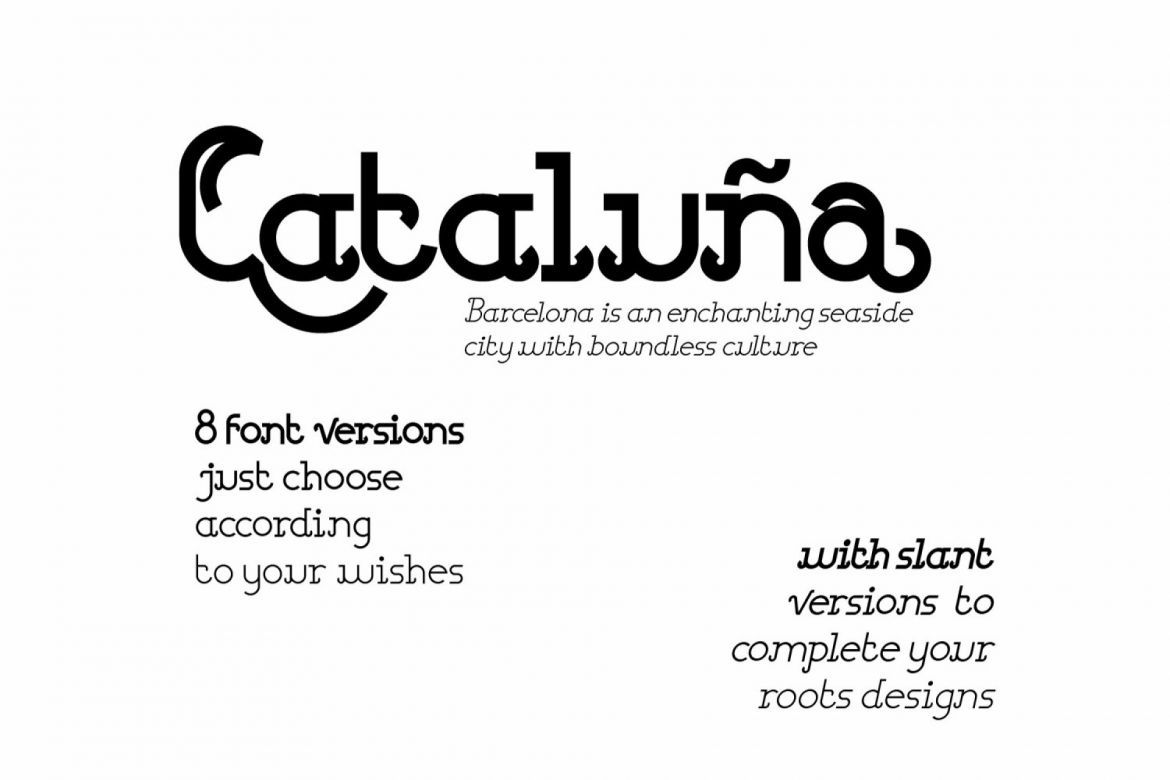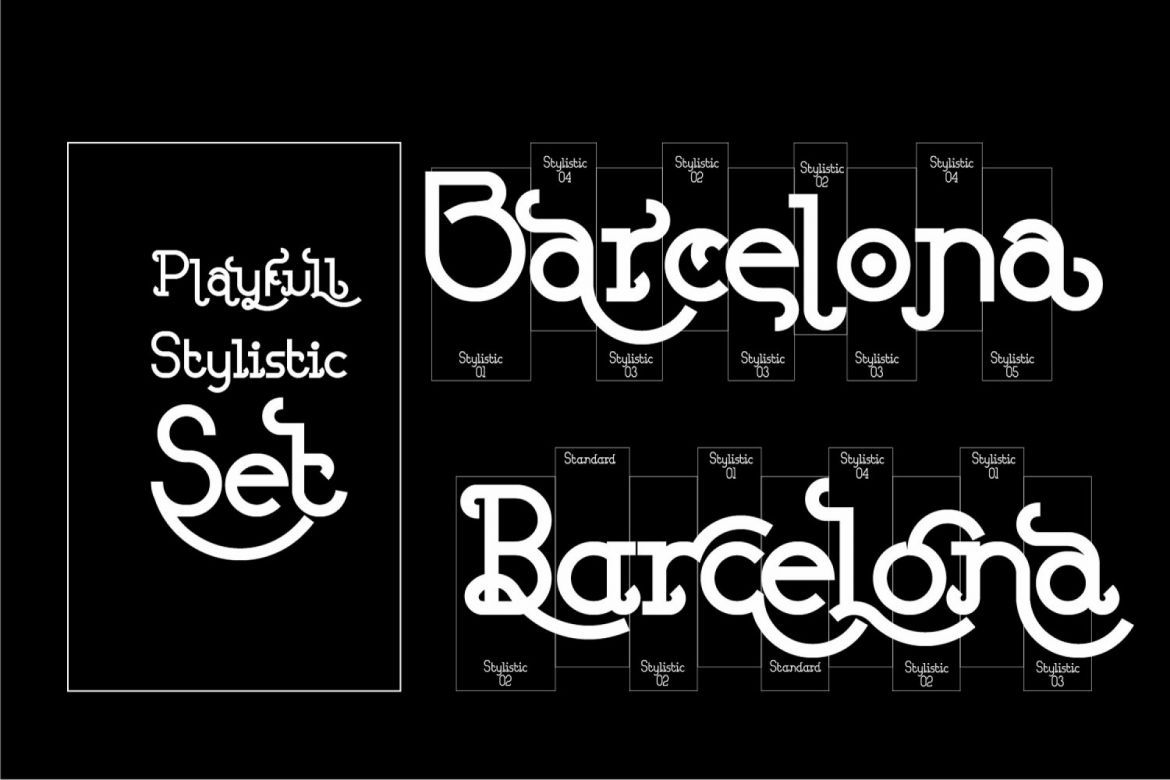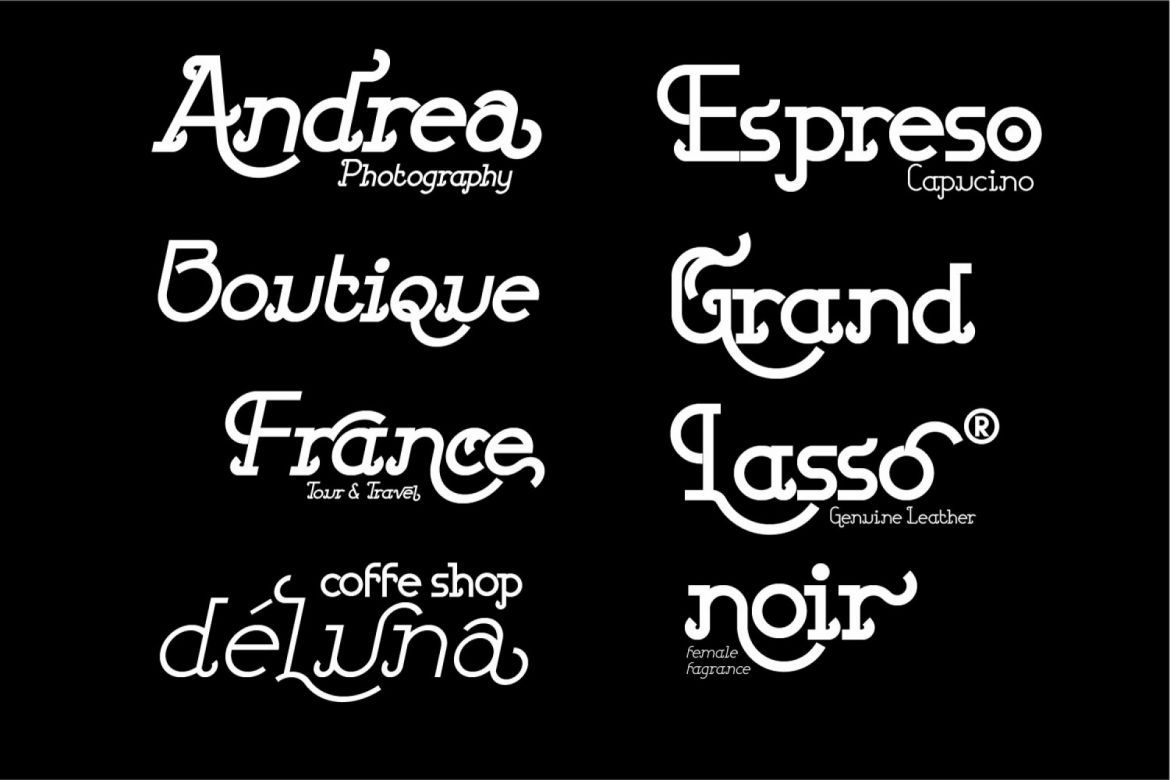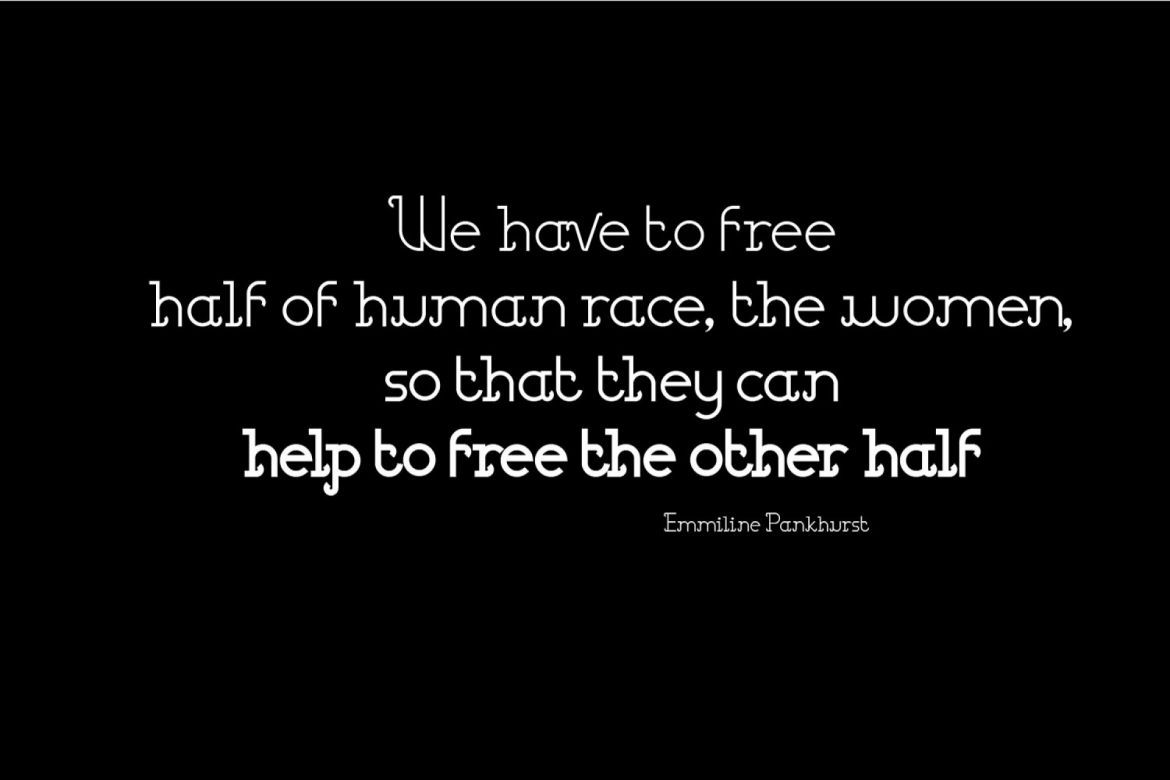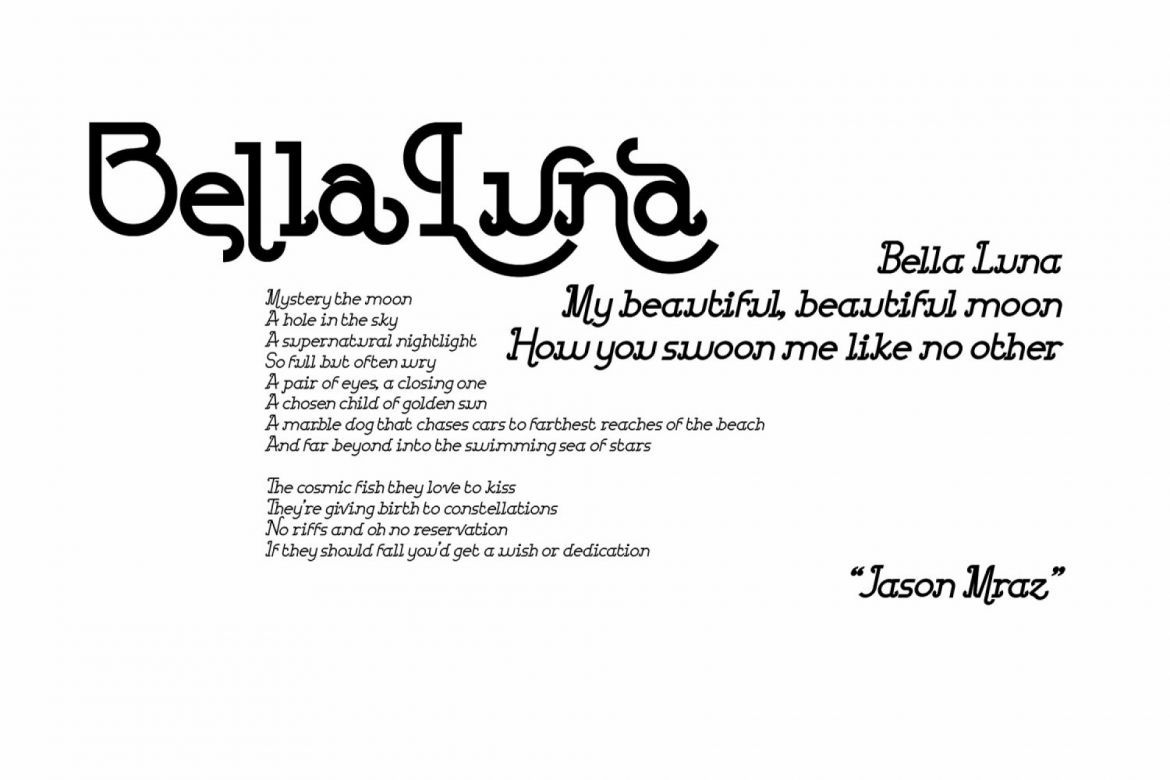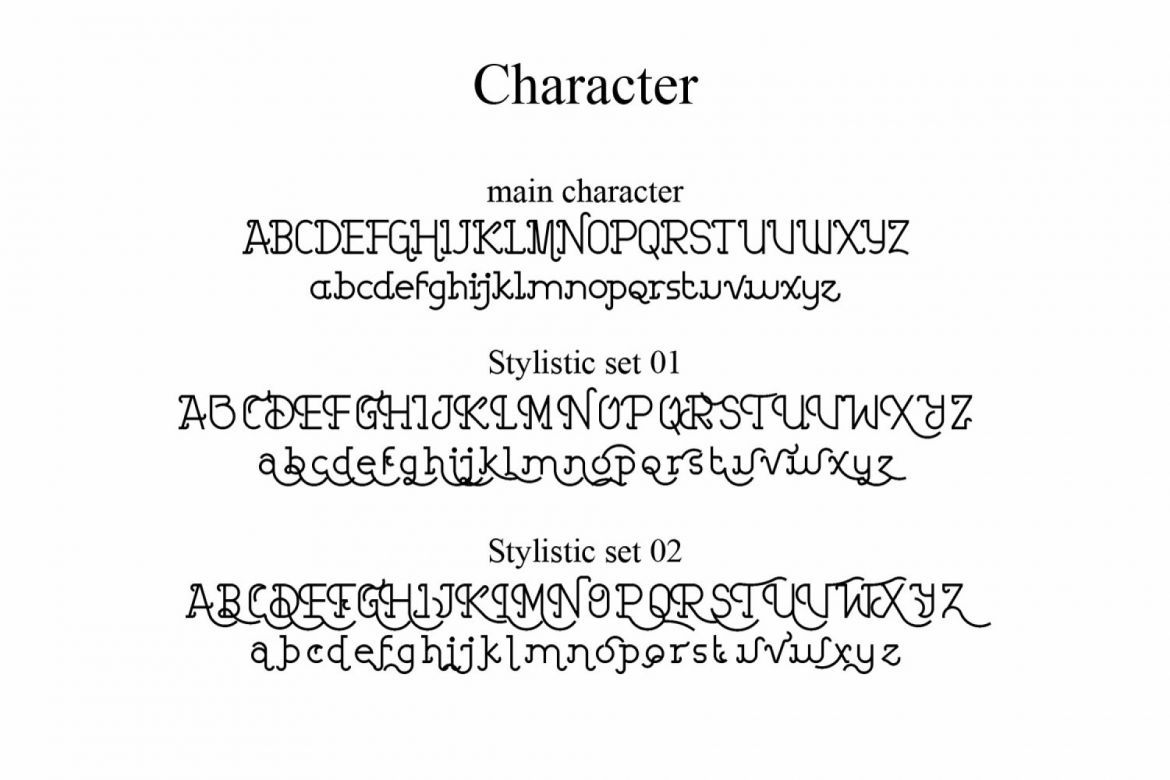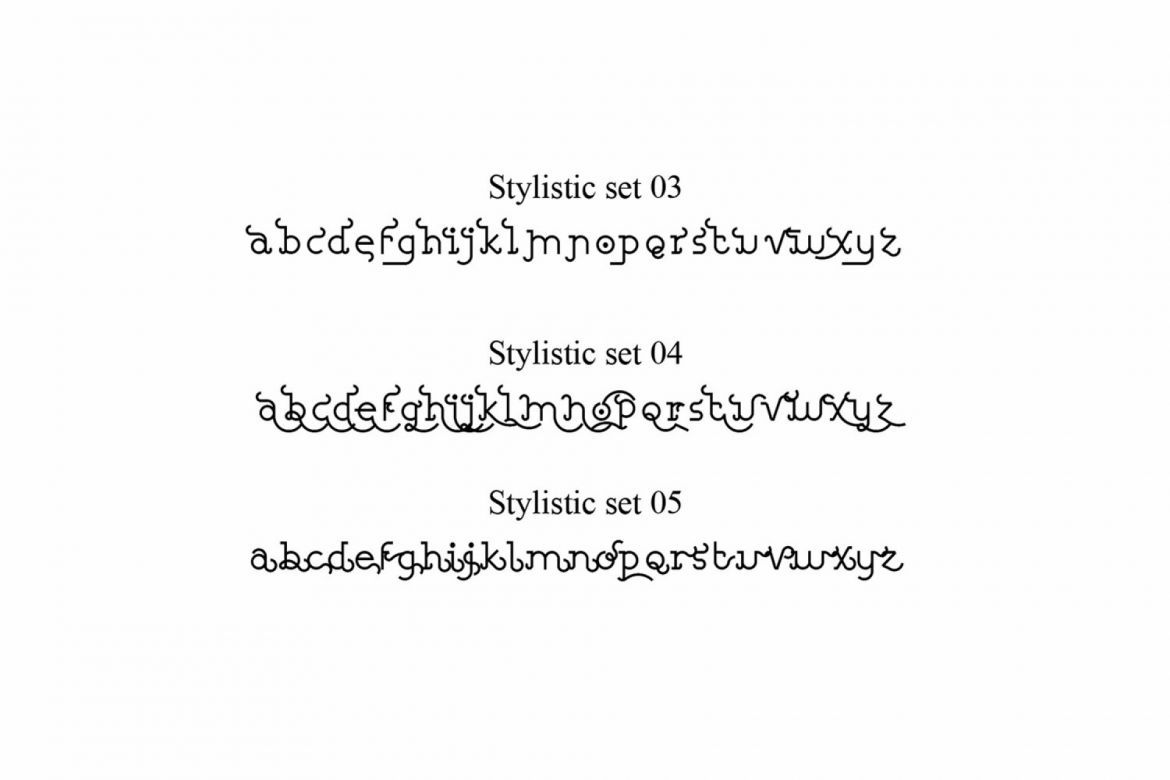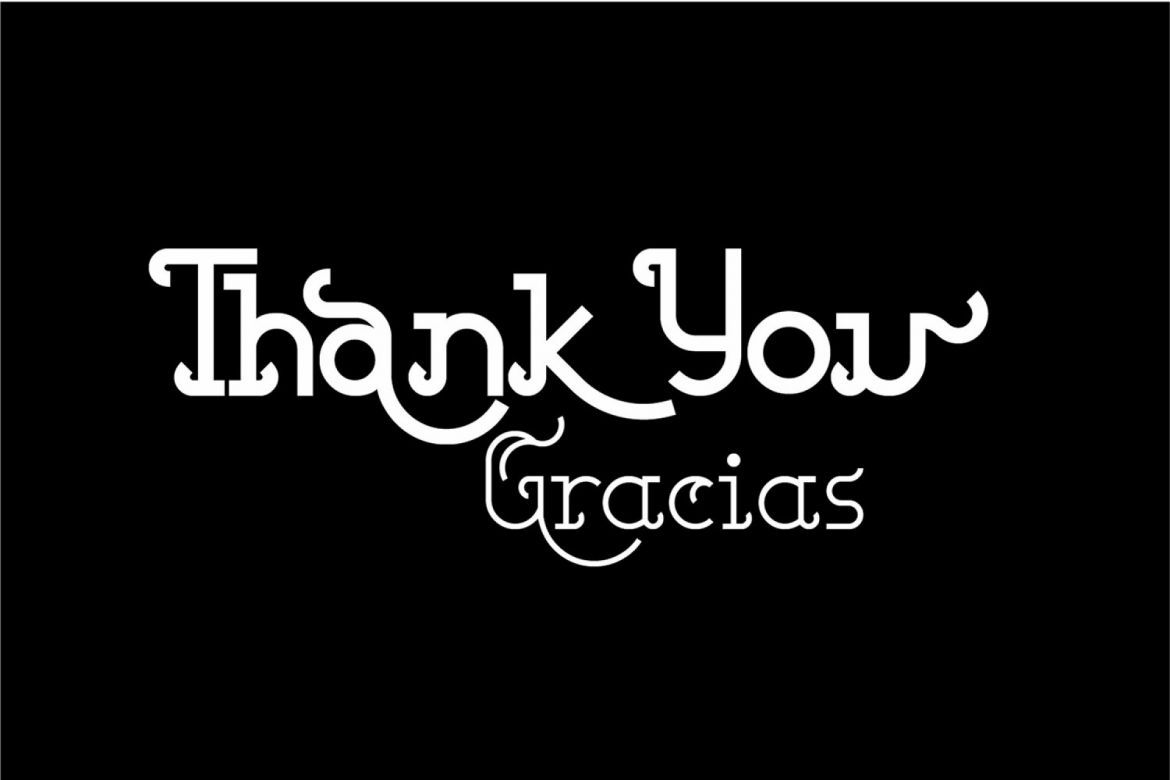
Barcelona Display Font Family
Barcelona is a font with new style of geometric san family. engaging character. Inviting and versatile, make it great for headlines, quotes and text. Its open type font with stylistic set. You can play the stylistic set (ss1-ss5) for logotype or branding product.
Barcelona is unique, with 5 stylistic set, you can make it a modern, minimalist, ellegant or vintage style. 8 family font make it perfect to root your design, light, thin, medium and bold. All of them has slant type.